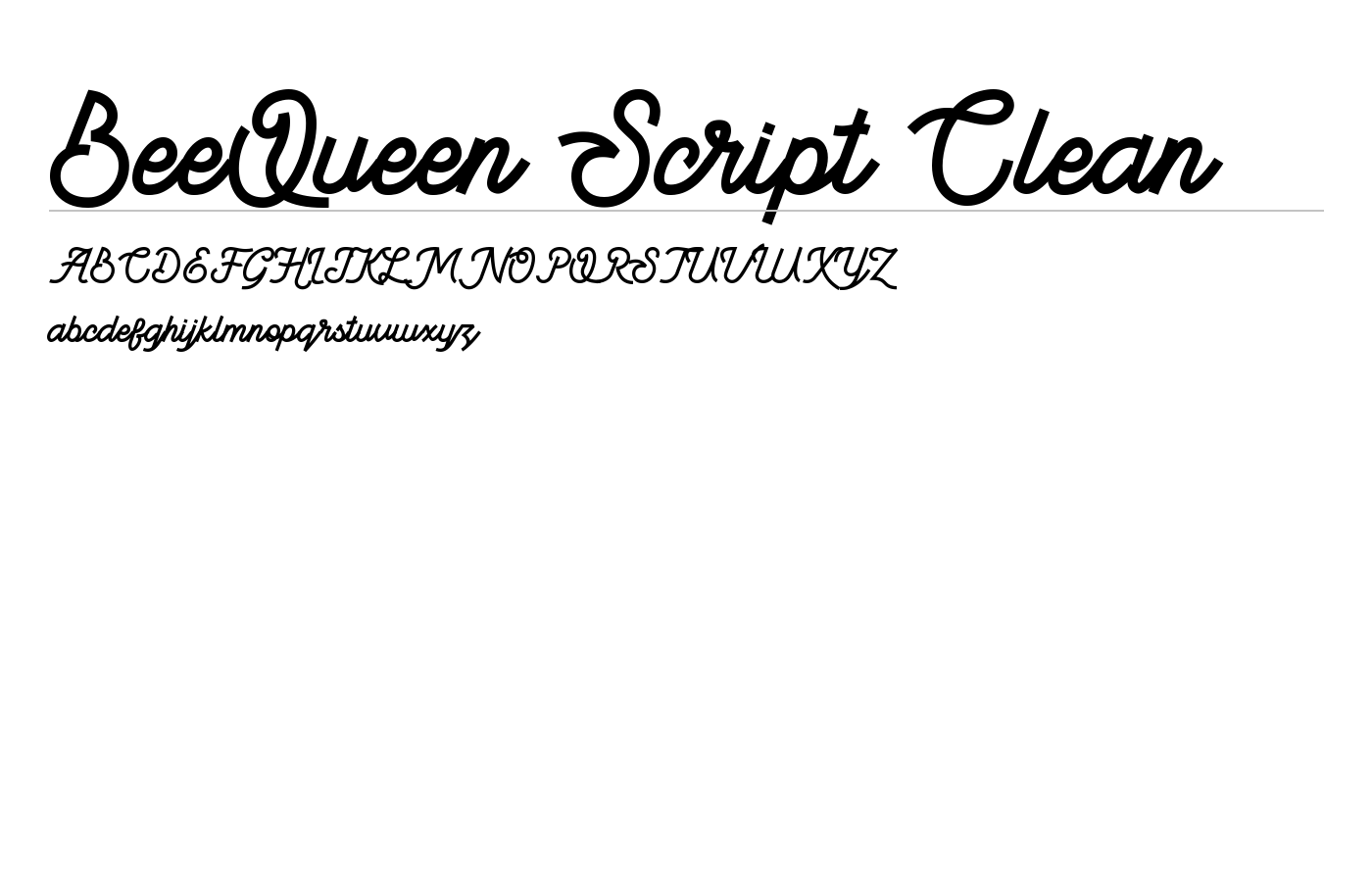
BeeQueen Script Clean is a smooth and elegant script font characterized by its clean, flowing strokes and moderate contrast. It offers a friendly yet refined personality, making it ideal for branding, invitations, and headlines that want to convey sophistication without losing approachability. This font works beautifully in fashion, beauty, and lifestyle projects, where a modern handwritten touch adds charm and clarity.
BeeQueen Script Clean Font